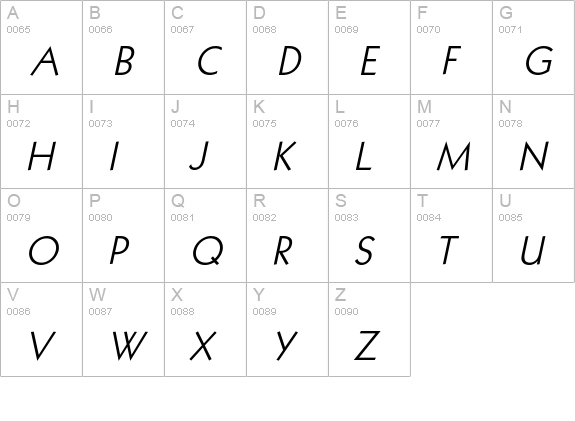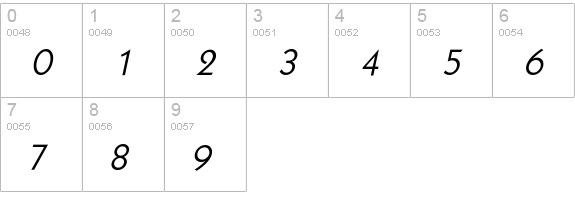
Geo 112 Italic is a distinctive, italic variant in the Geo typeface family \xE2\x80\x94 well suited to design and typography projects.
Introducing Geo 112 Italic font - a sleek and modern typeface that exudes sophistication and elegance. With its unique italic style, Geo 112 brings a touch of flair to any design project. Whether you're working on a logo, website, or print material, this font is sure to make a statement. What's even better is that Geo 112 Italic is completely free to use! That's right, you can download this stunning font at FontsMarket.com without spending a dime. So why wait? Add Geo 112 Italic to your font collection today and elevate your designs to the next level.